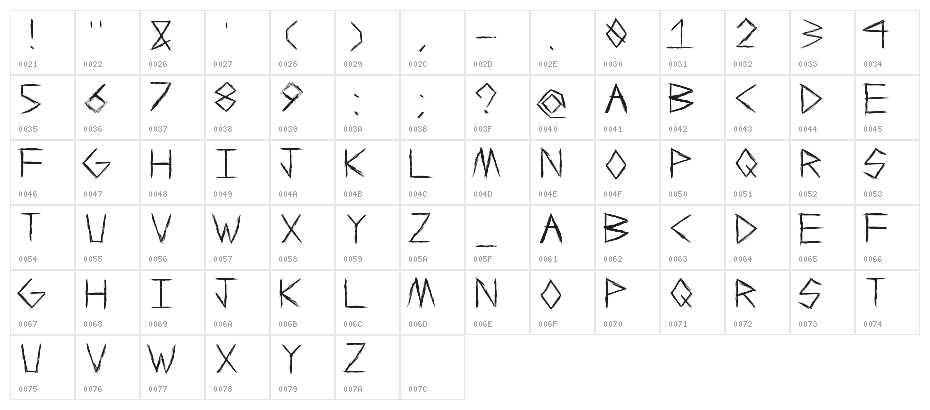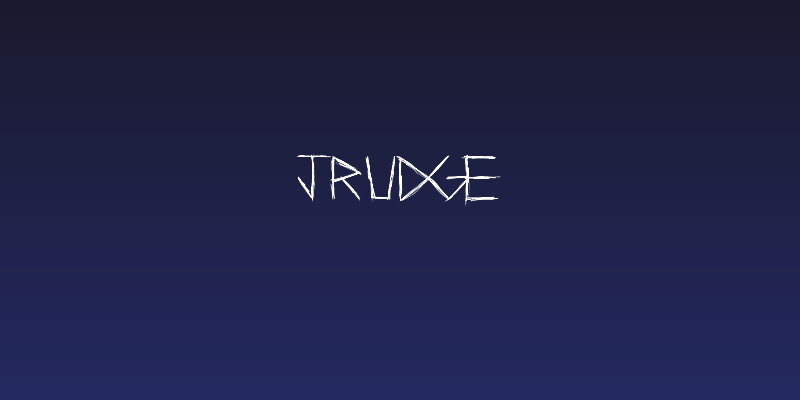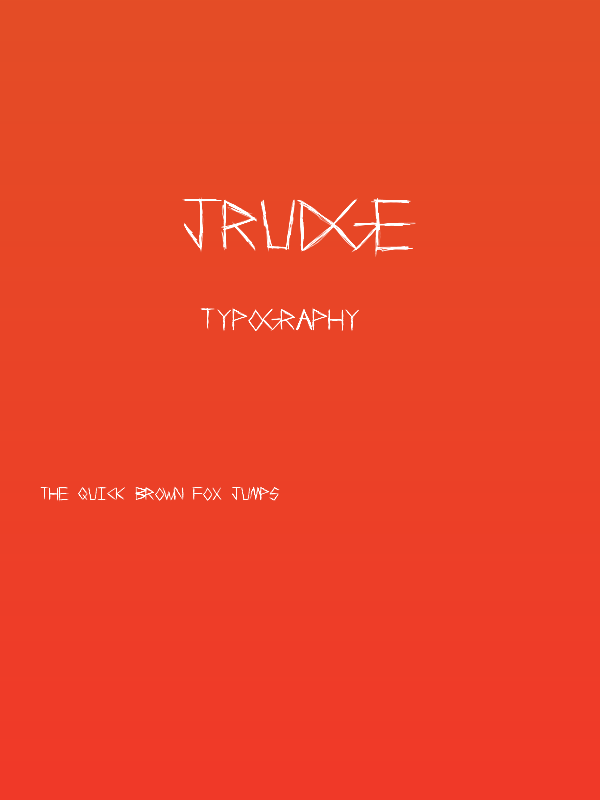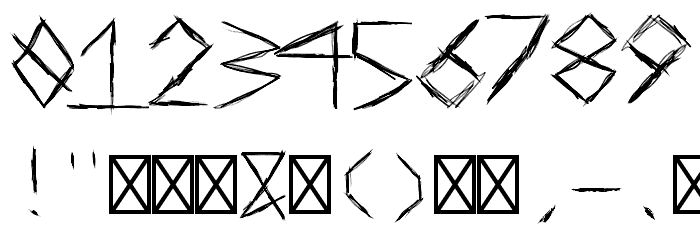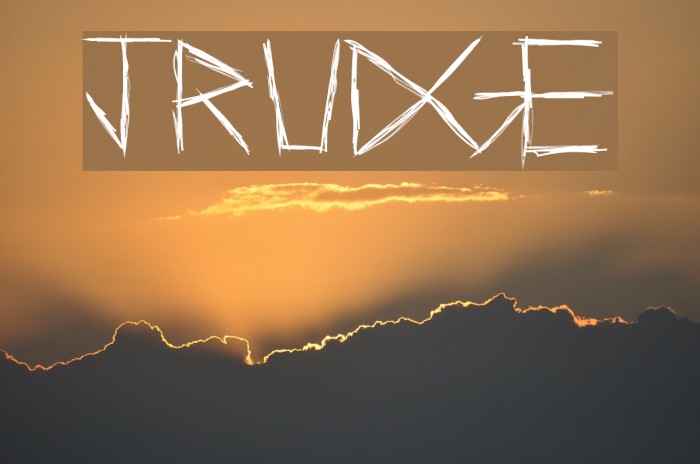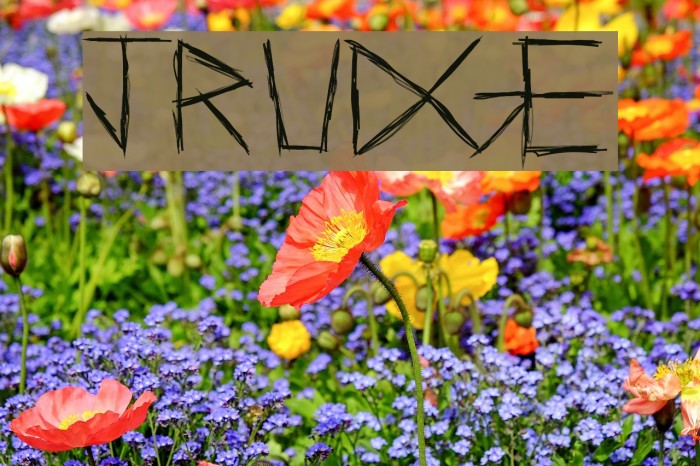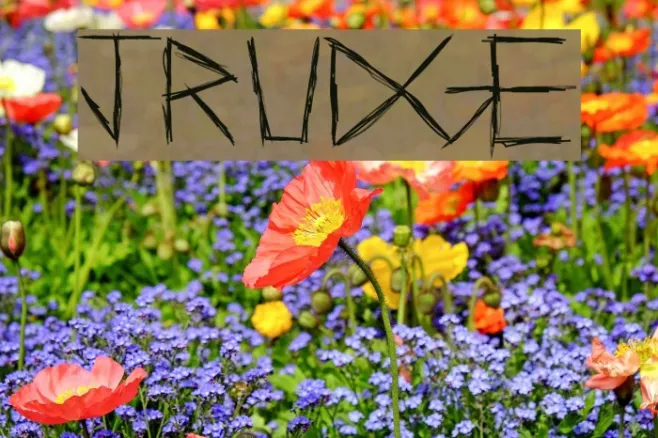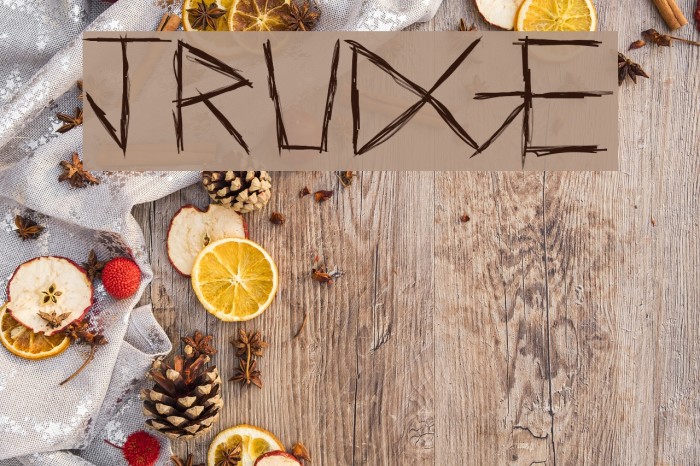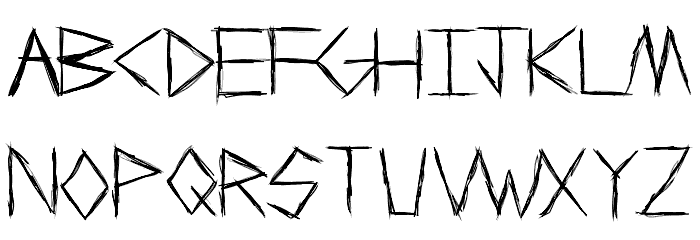
Jrudge Font
Jrudge Description
This font features a rugged, hand-drawn style with sharp, angular lines and a distressed appearance. The characters are uneven and jagged, giving a sense of raw energy and edginess. The uppercase and lowercase letters maintain a consistent style, with each character appearing as if it were sketched with a rough brush or pen. The numbers and special characters follow the same aesthetic, adding to the overall cohesive look. This font's unique and bold design makes it stand out, suitable for projects that require a touch of rebellion or a grunge vibe.
| Overall Style | Edgy, Grunge, Hand-drawn |
| Use Case | Headlines, Posters, Branding |
| Proposed Projects | Album covers, posters, graffiti art, edgy branding, and alternative fashion designs. |